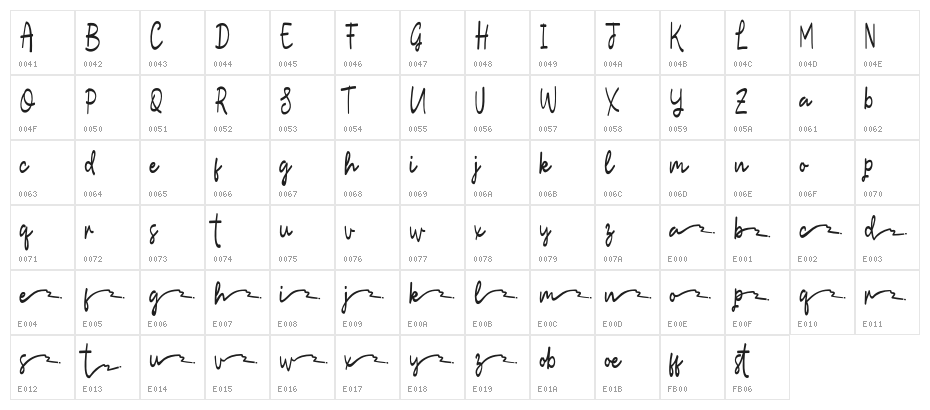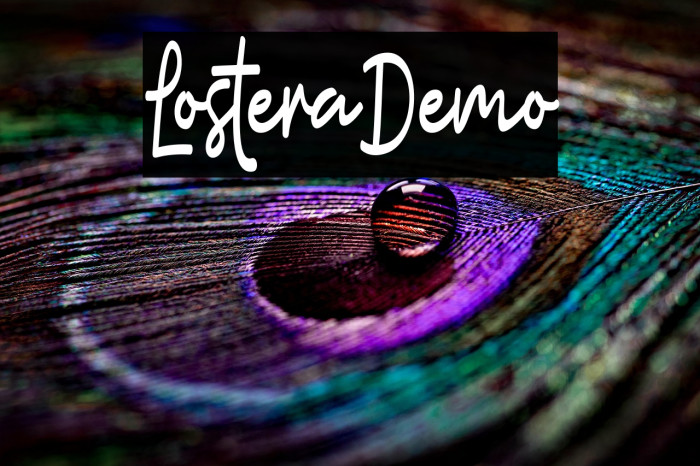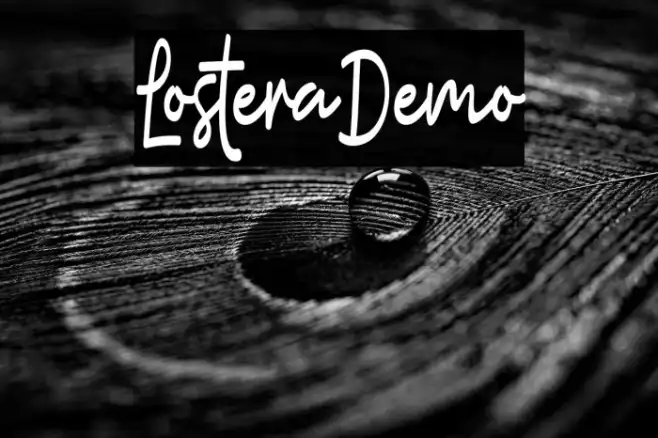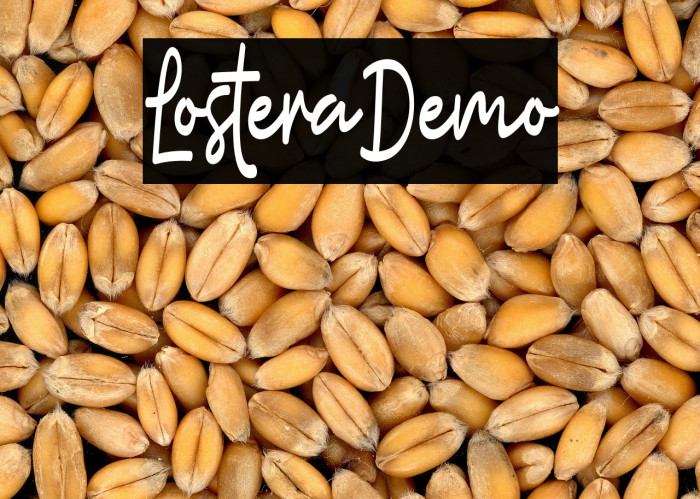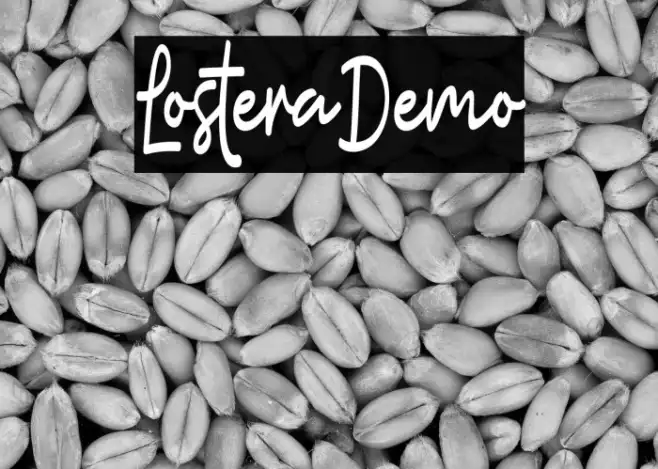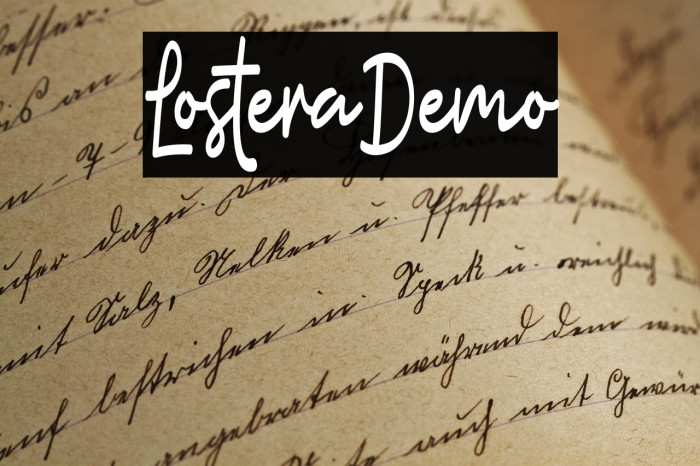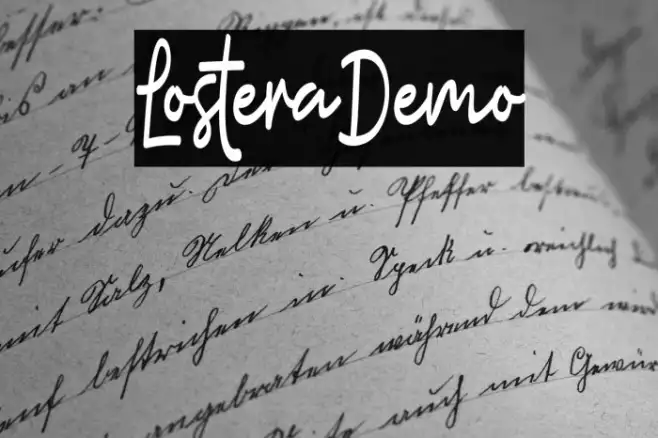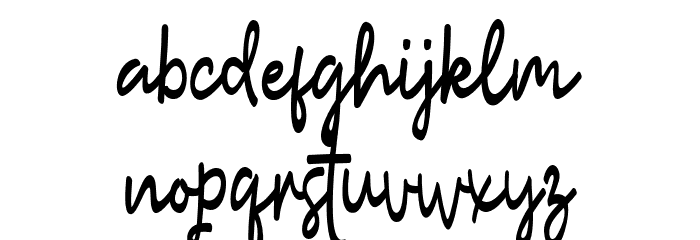
LosteraDemo Font
LosteraDemo Description
This font features a playful and casual handwritten style, characterized by its fluid and slightly irregular strokes. The uppercase letters are tall and narrow, with a slight slant that adds a dynamic feel. The lowercase letters are more connected, resembling cursive handwriting, which enhances the font's informal and friendly appearance. The numbers and special characters maintain the same playful aesthetic, making the font versatile for various creative applications. Its unique style is suitable for projects that require a personal touch, such as invitations, greeting cards, or branding for creative businesses.